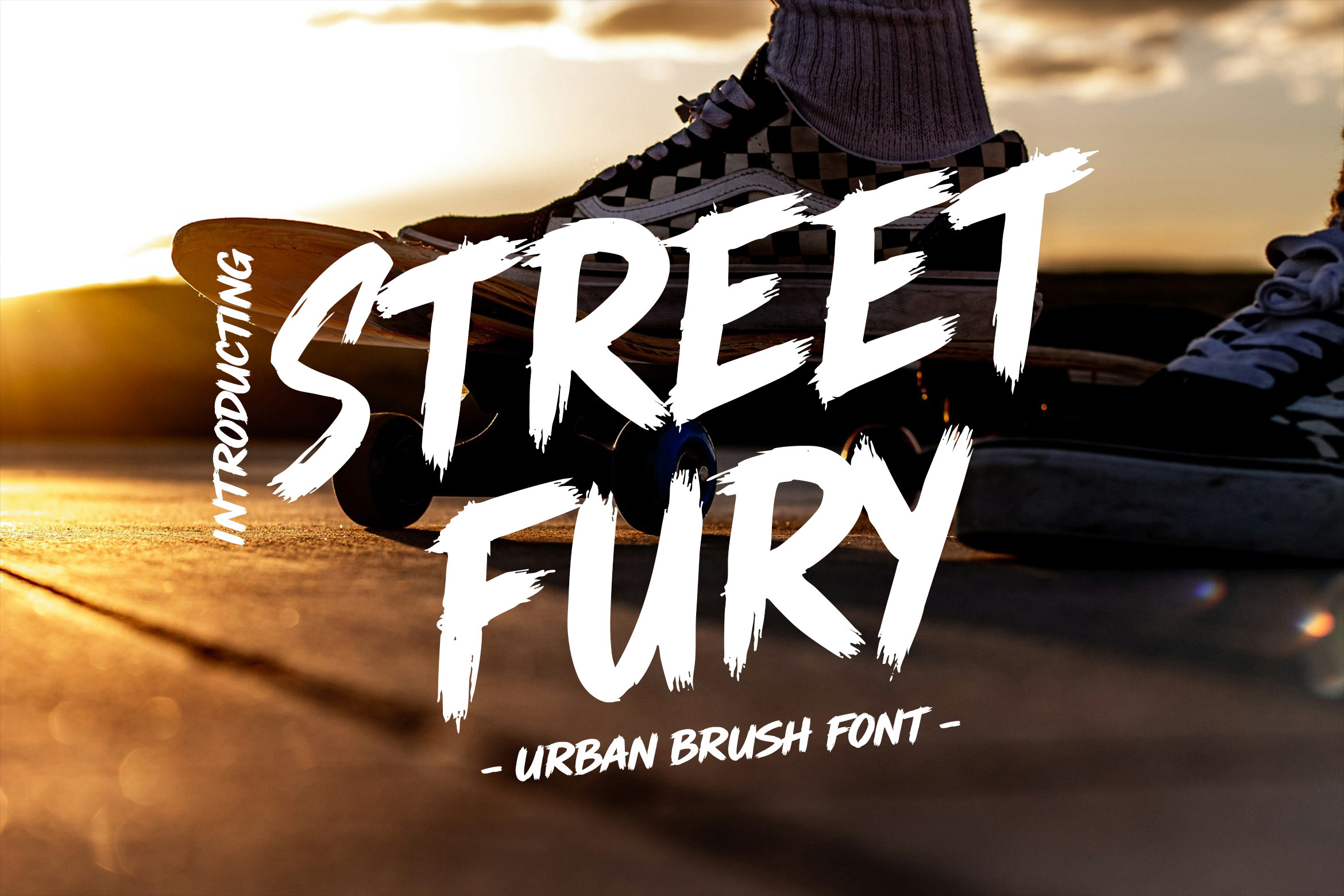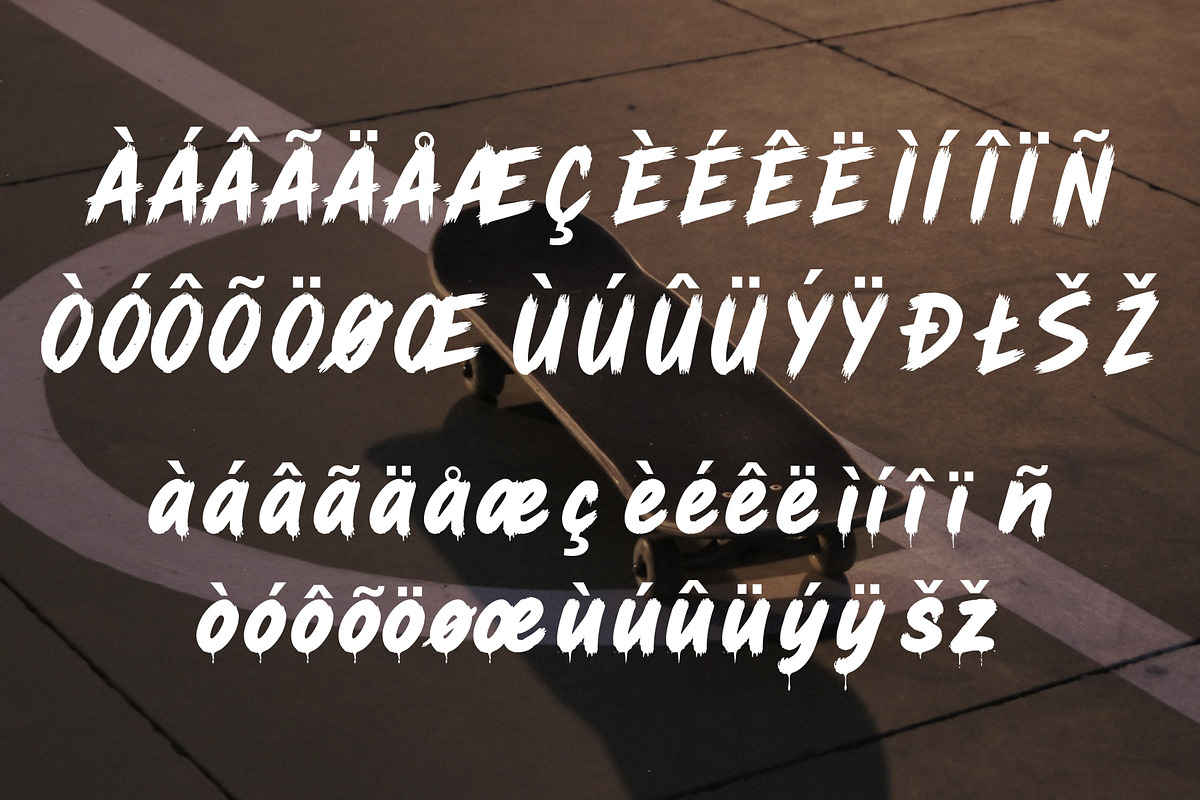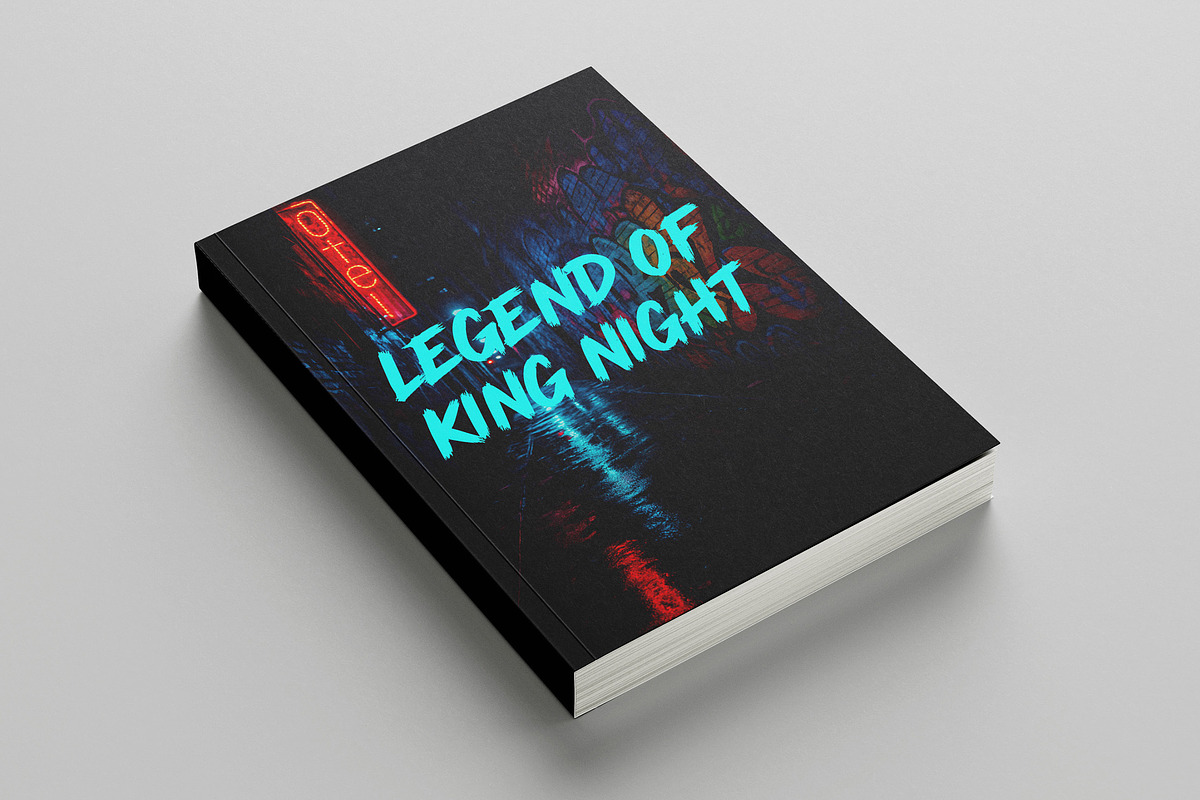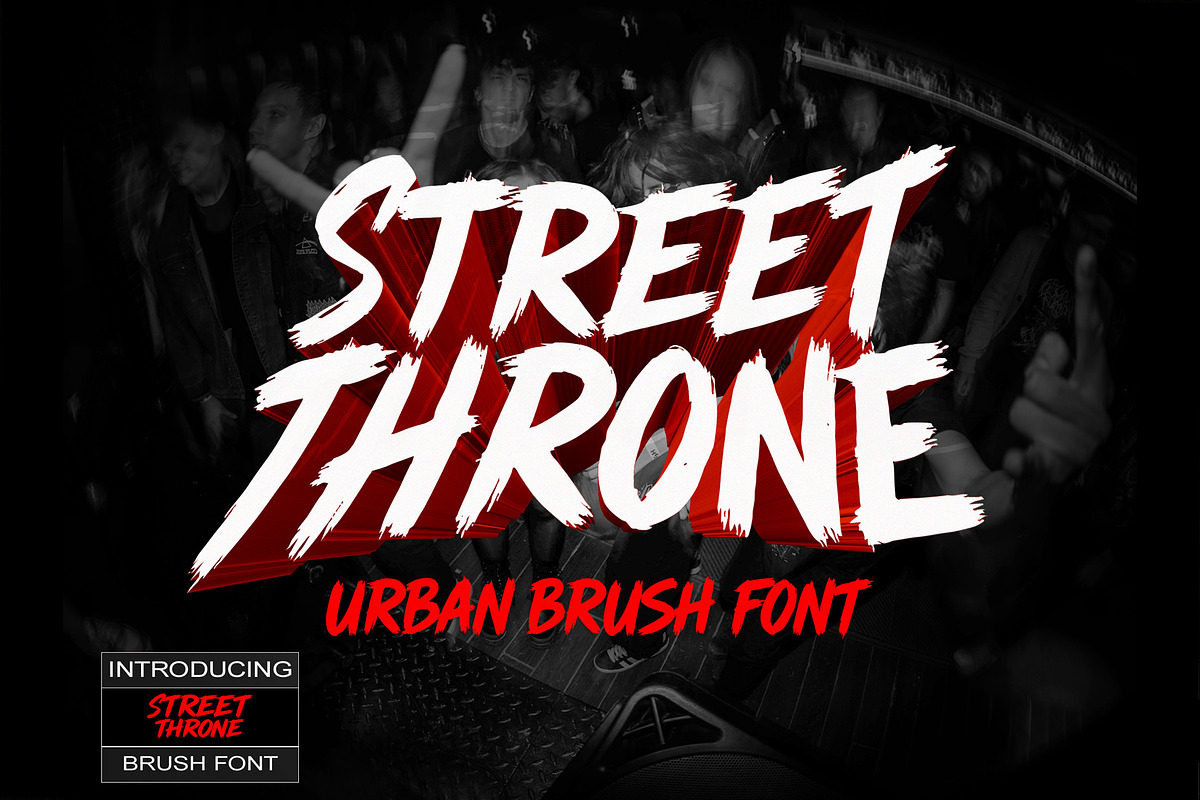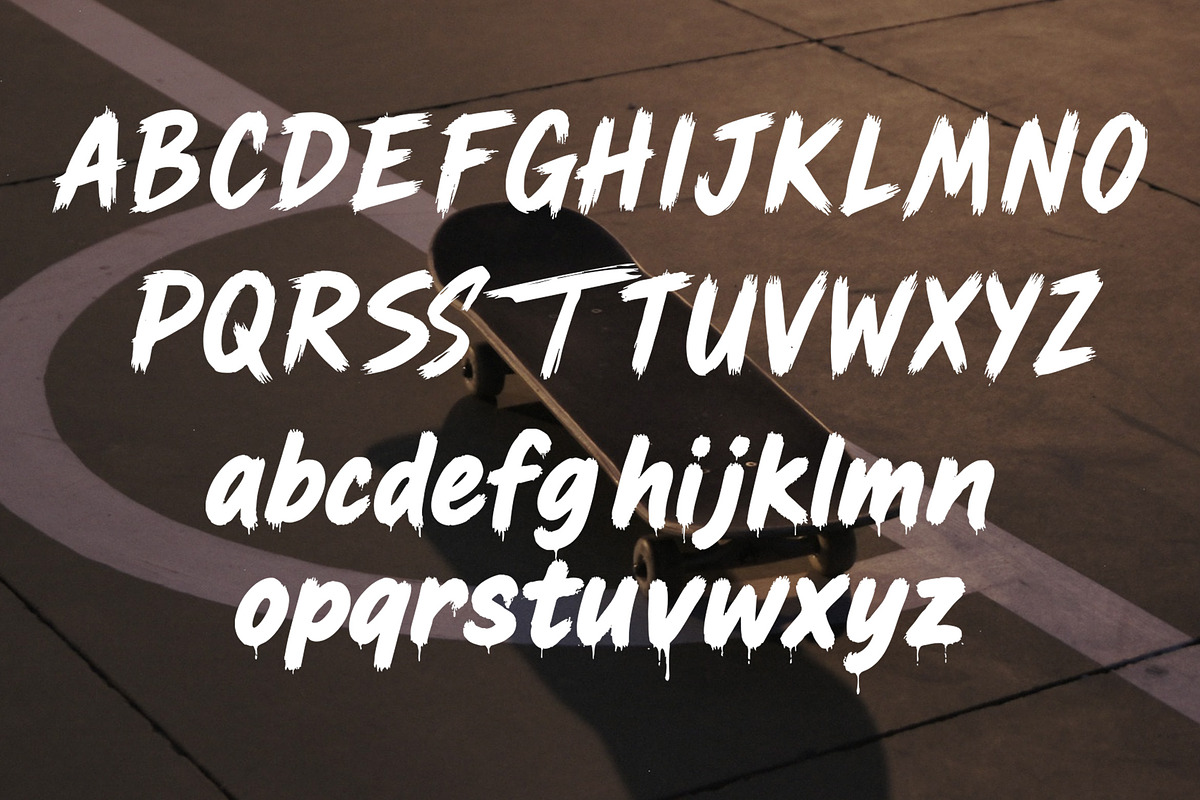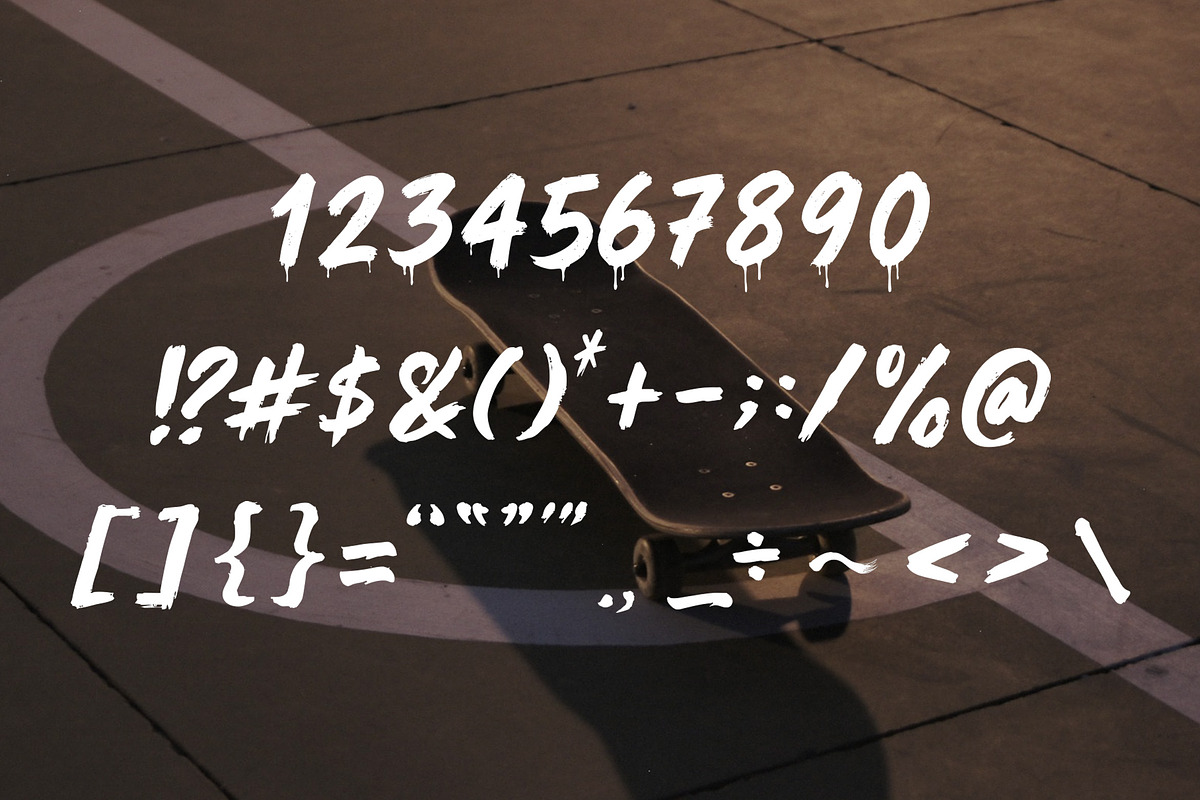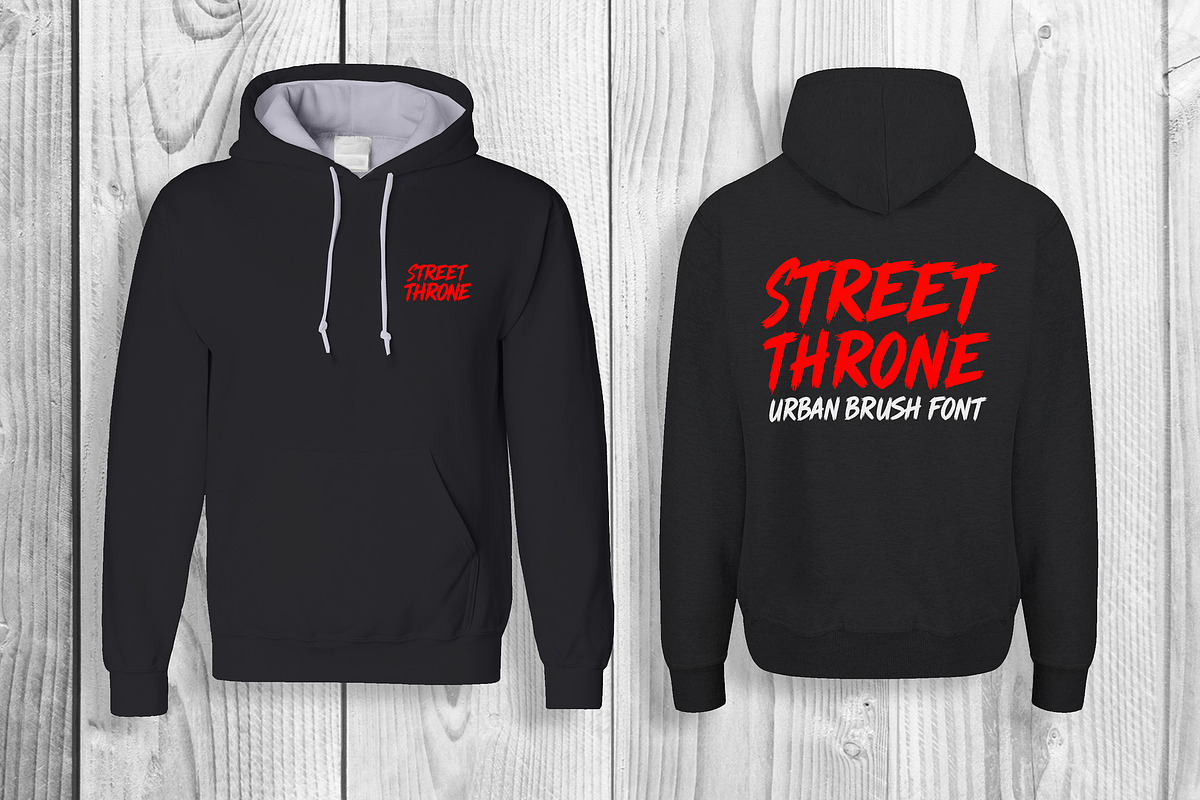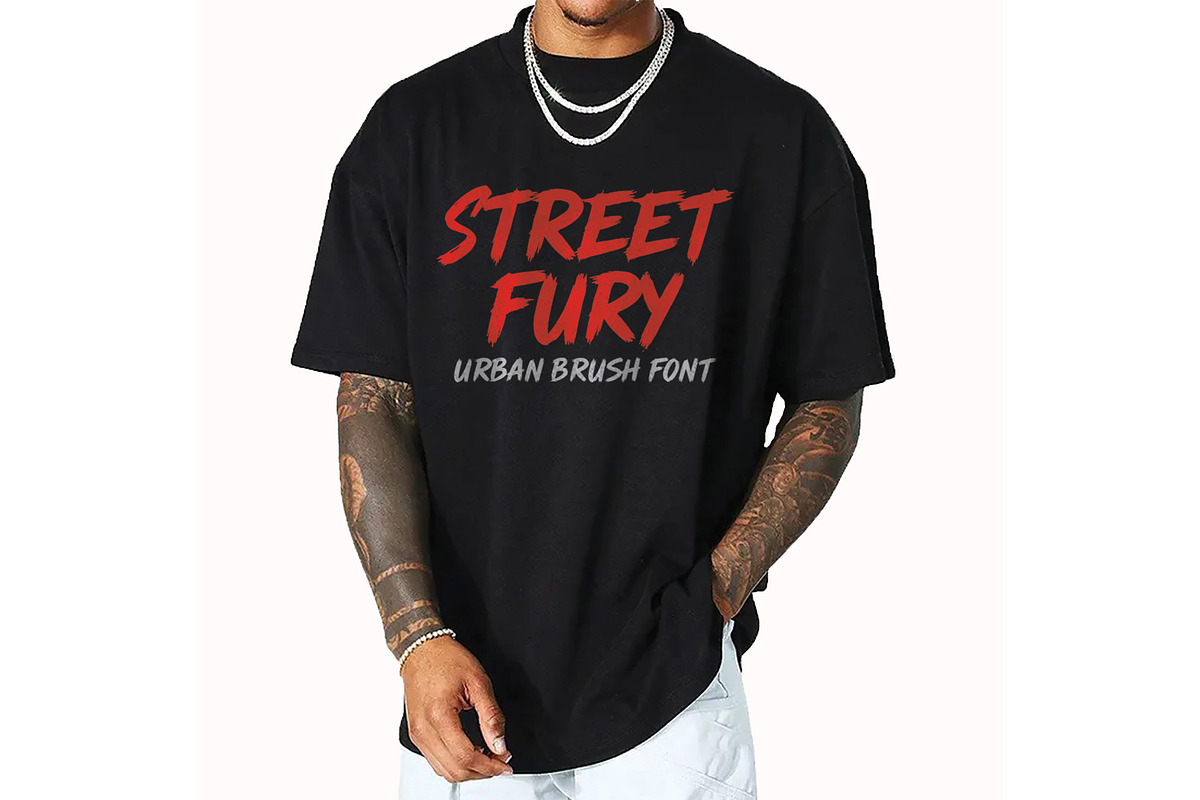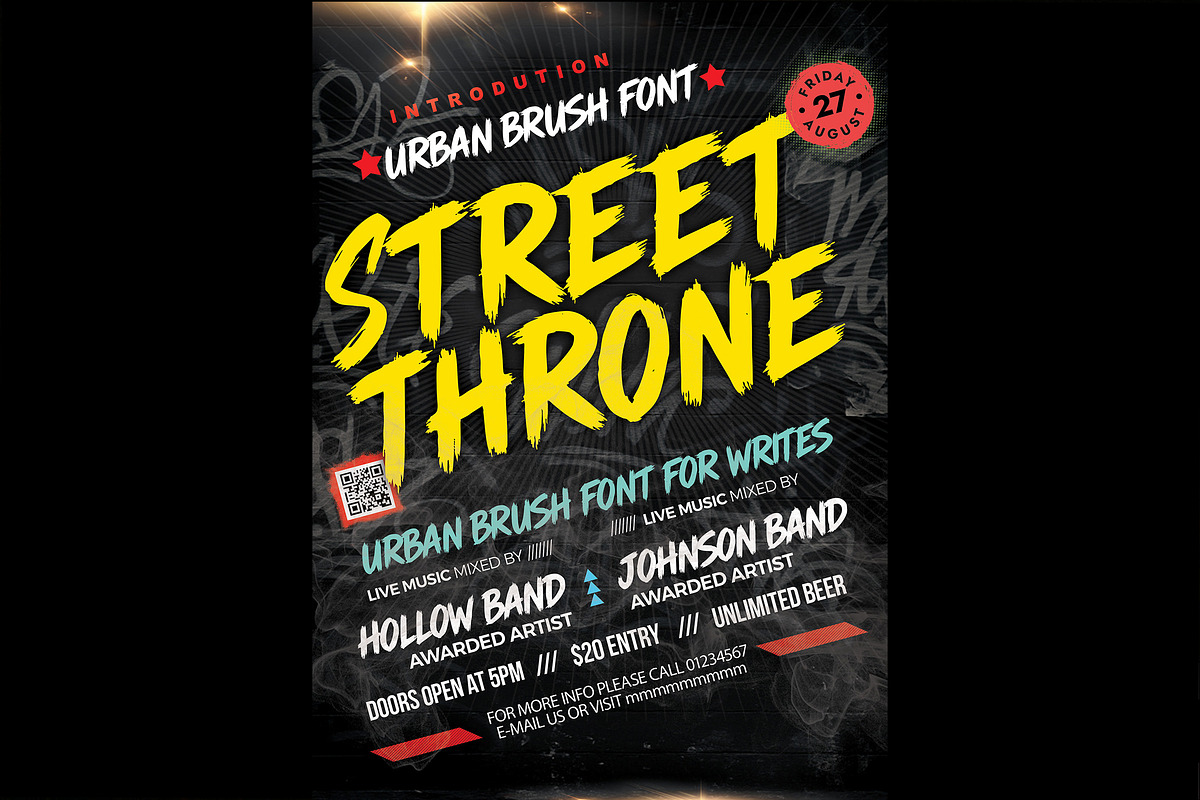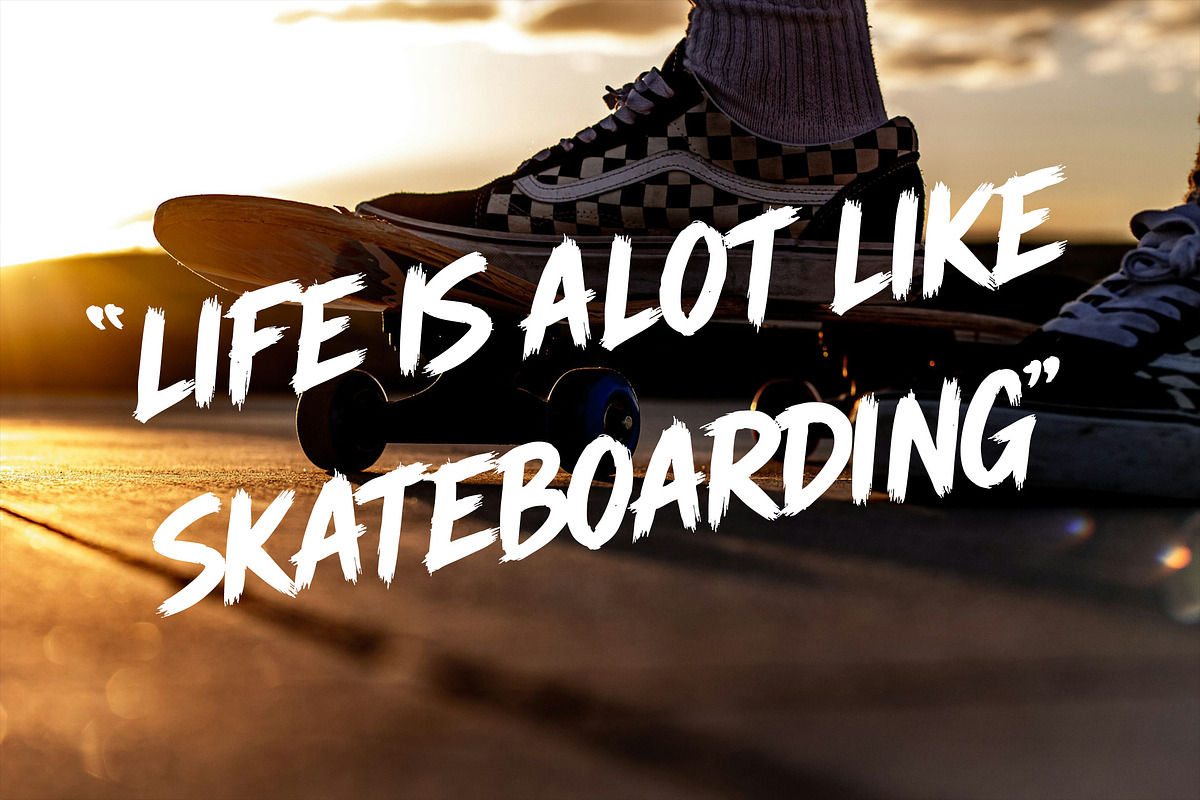
Streetfury Urban Brush Font
Streetfury is a bold and untamed brush font that captures the raw energy of urban street art. With its rough textures and explosive strokes, it’s perfect for poster designs, music branding, and anything that needs a punch of rebellion. Bring the chaos of the streets into your designs with Streetfury — loud, gritty, and full of attitude.
- 223 Glyps included Uppercase, Lowercase, Numeral, Punctuation, Multilingual international Language.